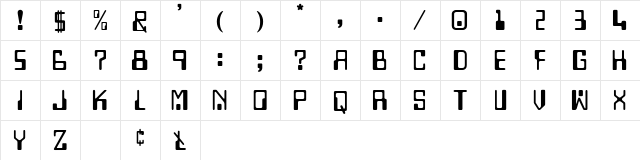
Techno Display Caps SSi Regular
Design Context for Techno Display Caps SSi Typeface
Techno Display Caps SSi has a distinctly futuristic character, with geometric precision and clean angles that feel at home in technology, gaming, and sci-fi contexts.
Pro Tip: Use Techno Display Caps SSi in combination with a neutral sans for body text. Let it define the brand voice in headlines while keeping reading comfortable elsewhere.